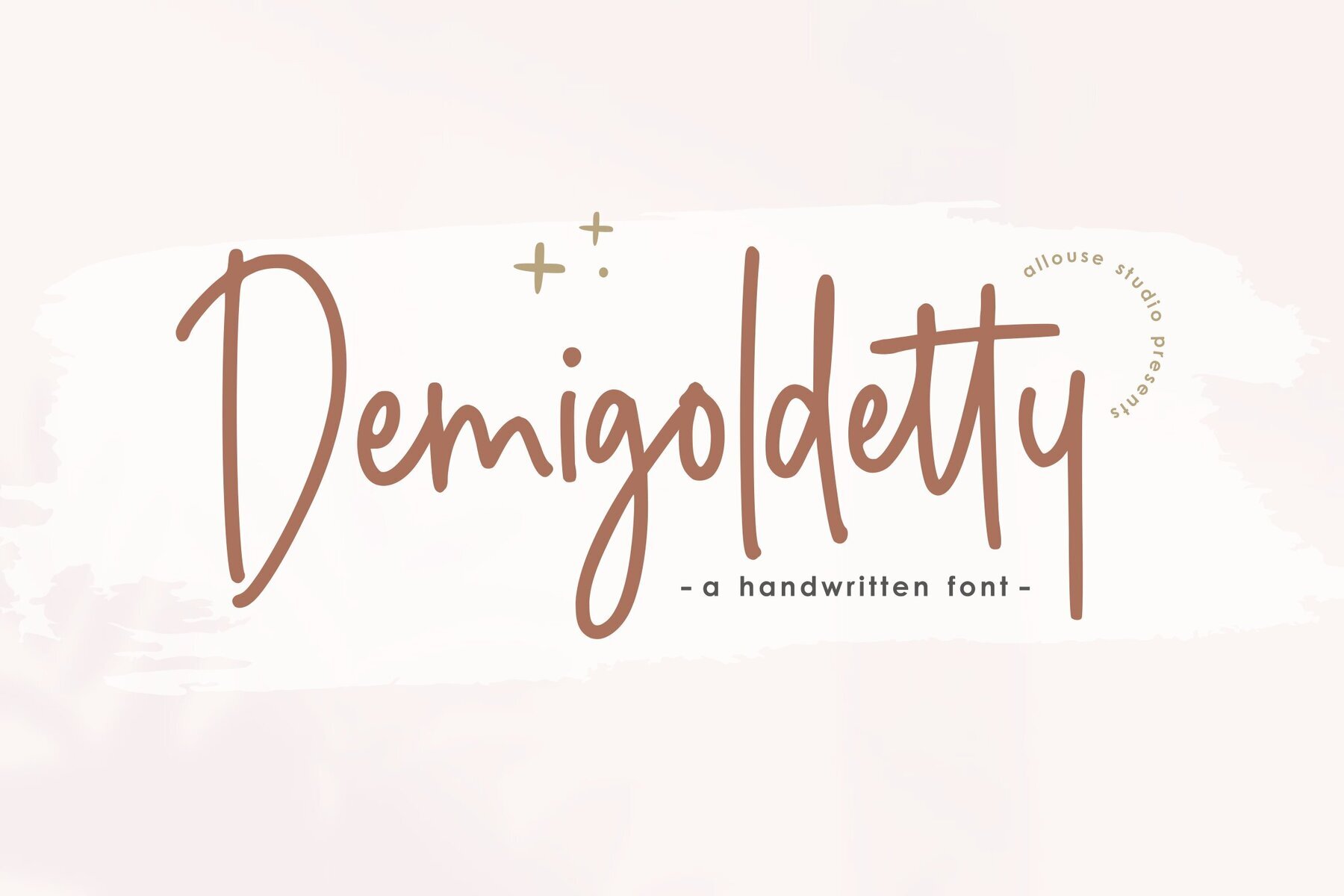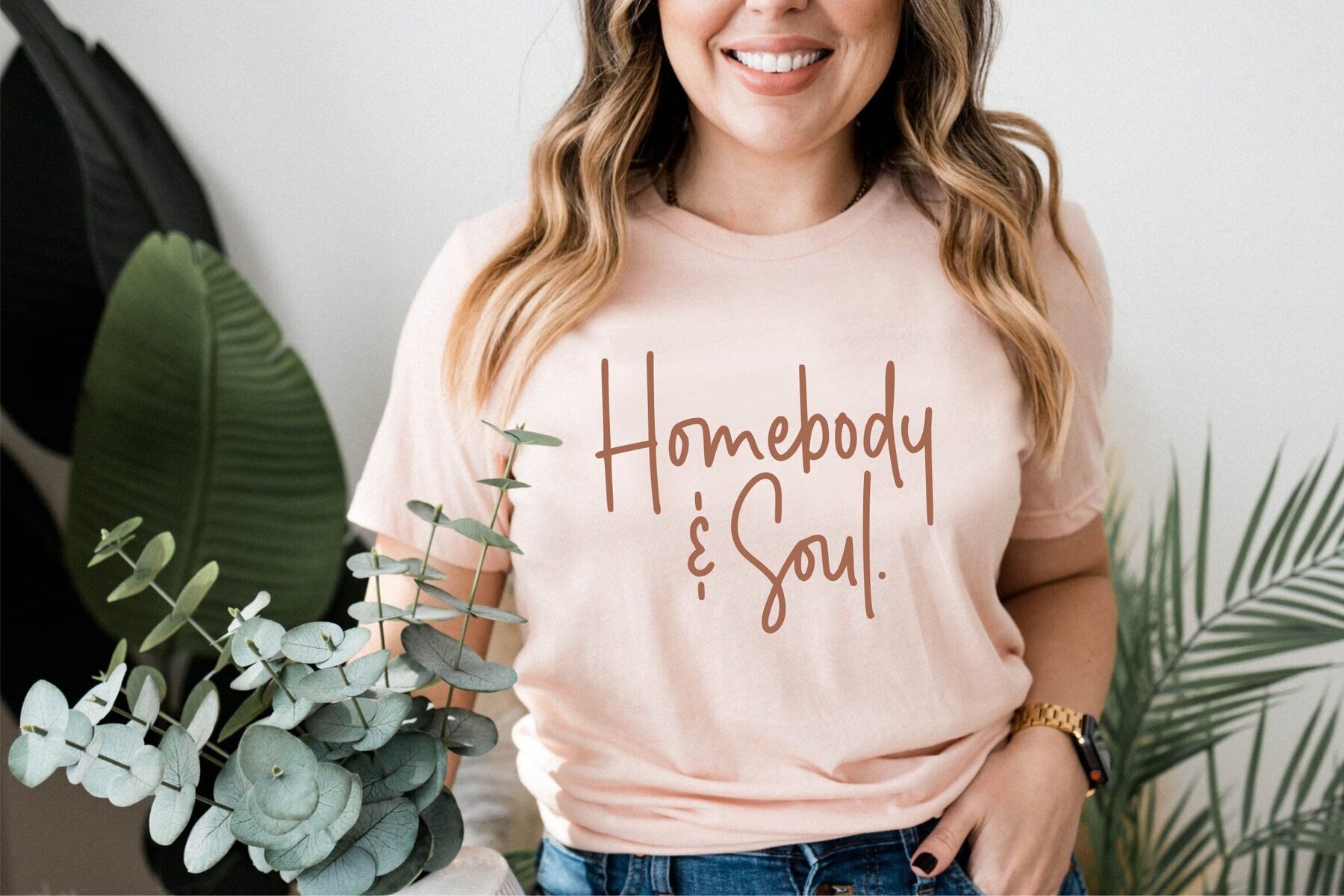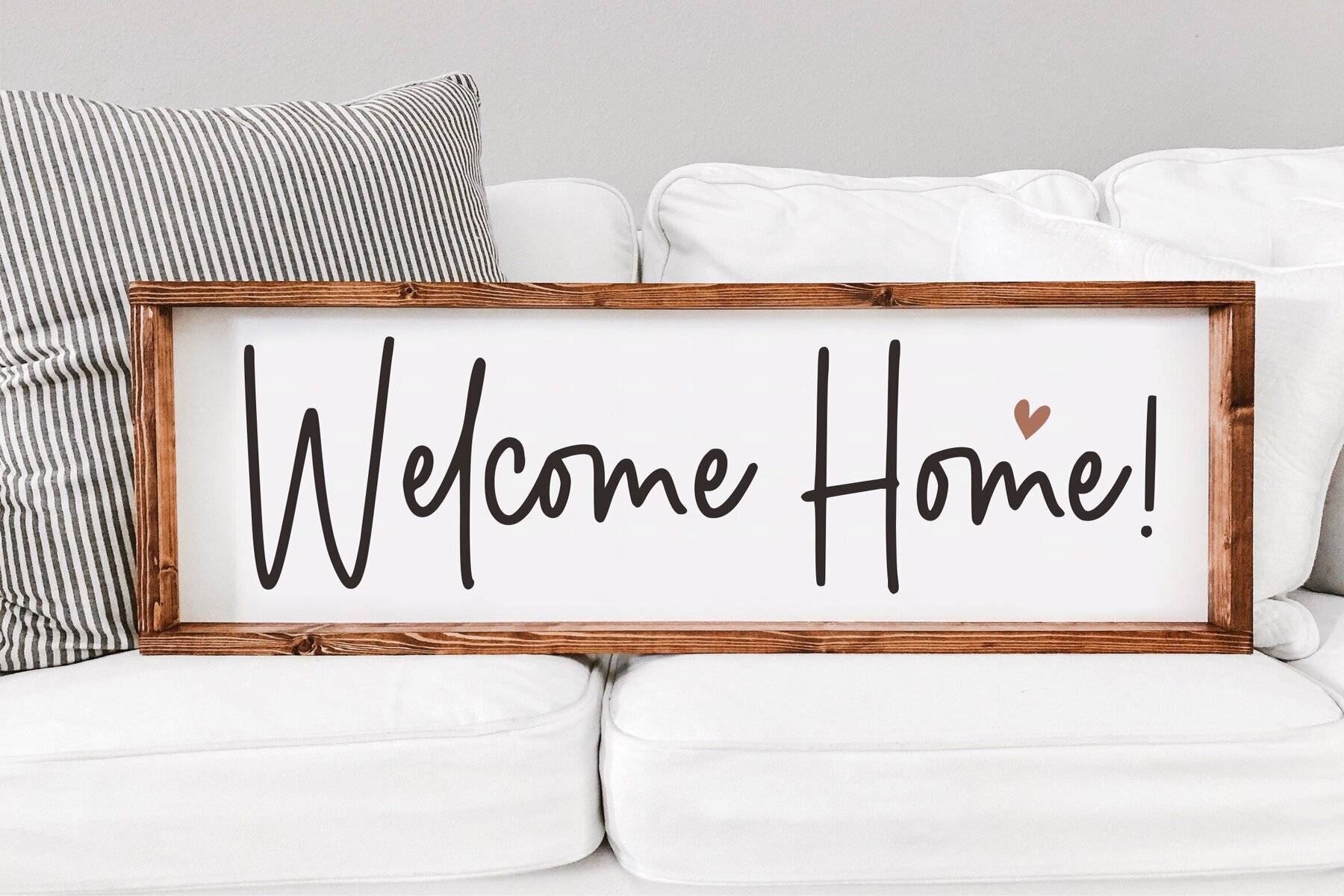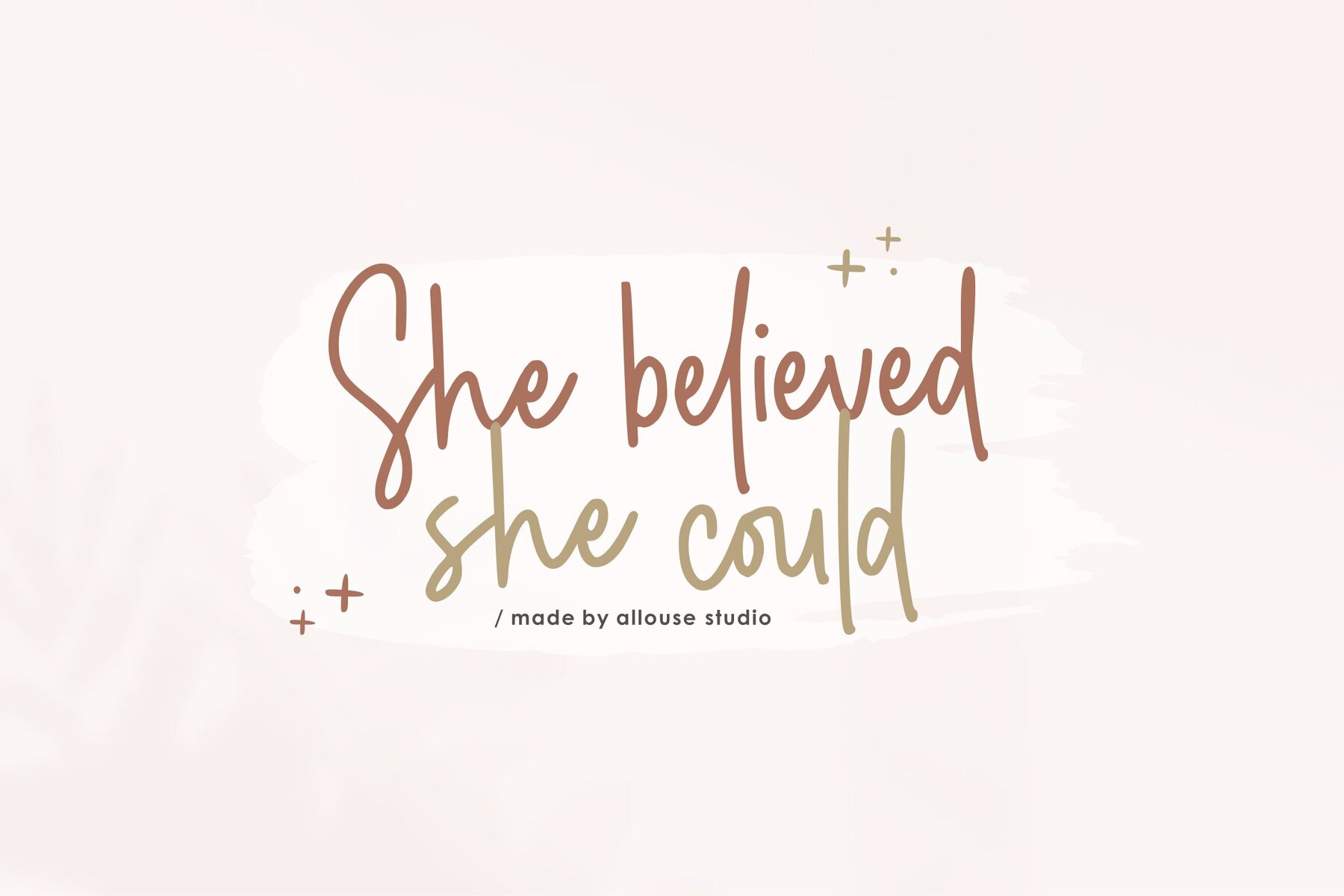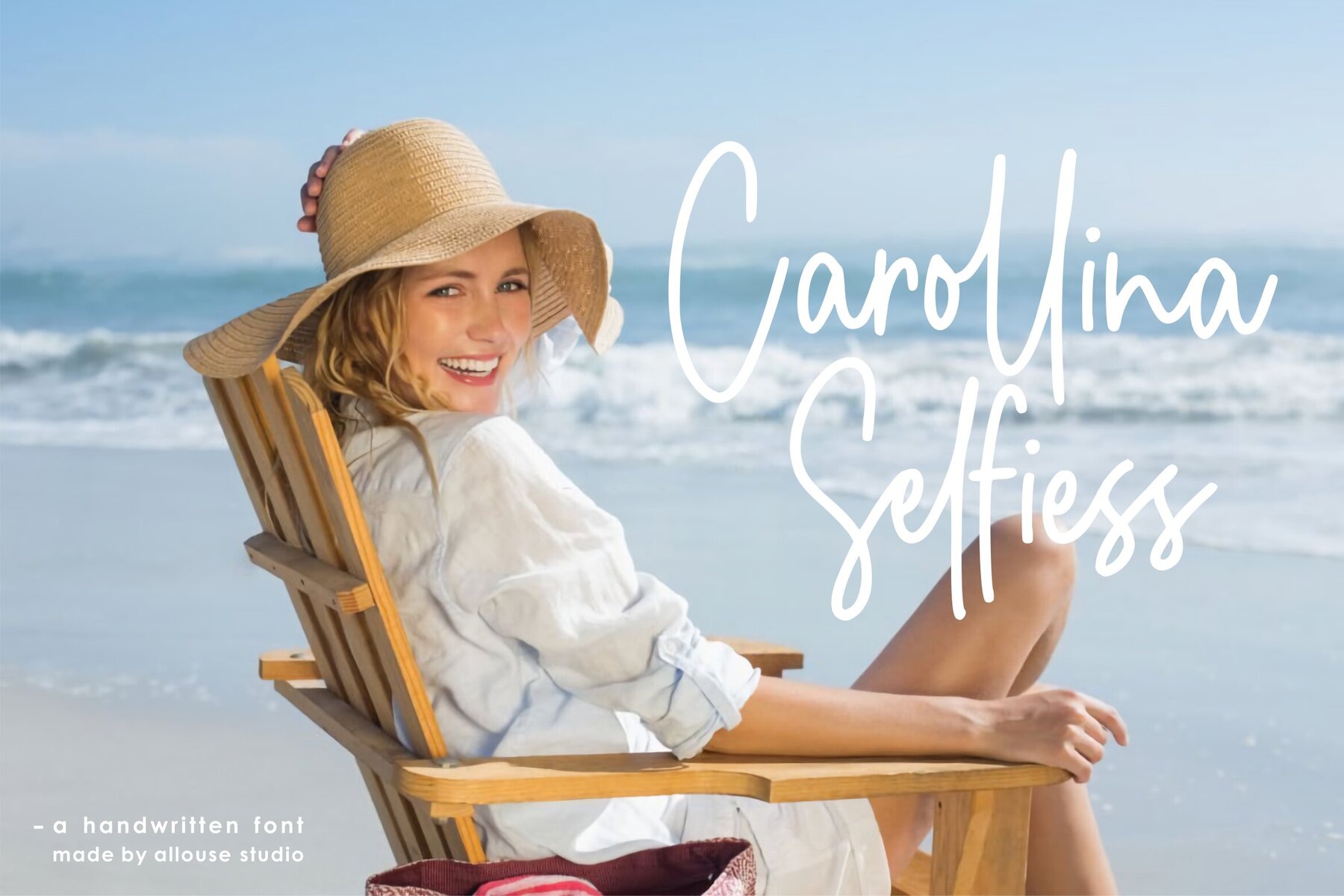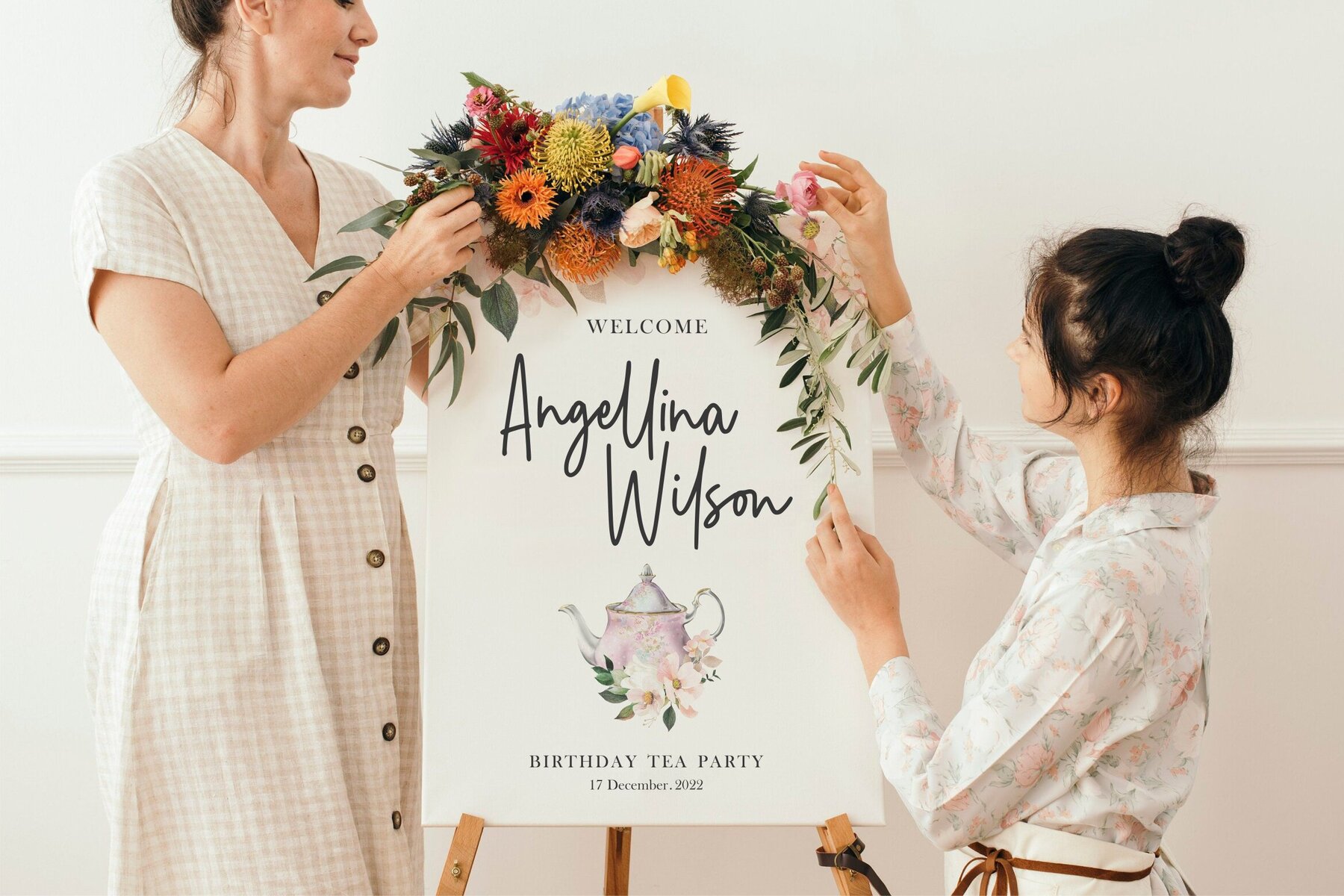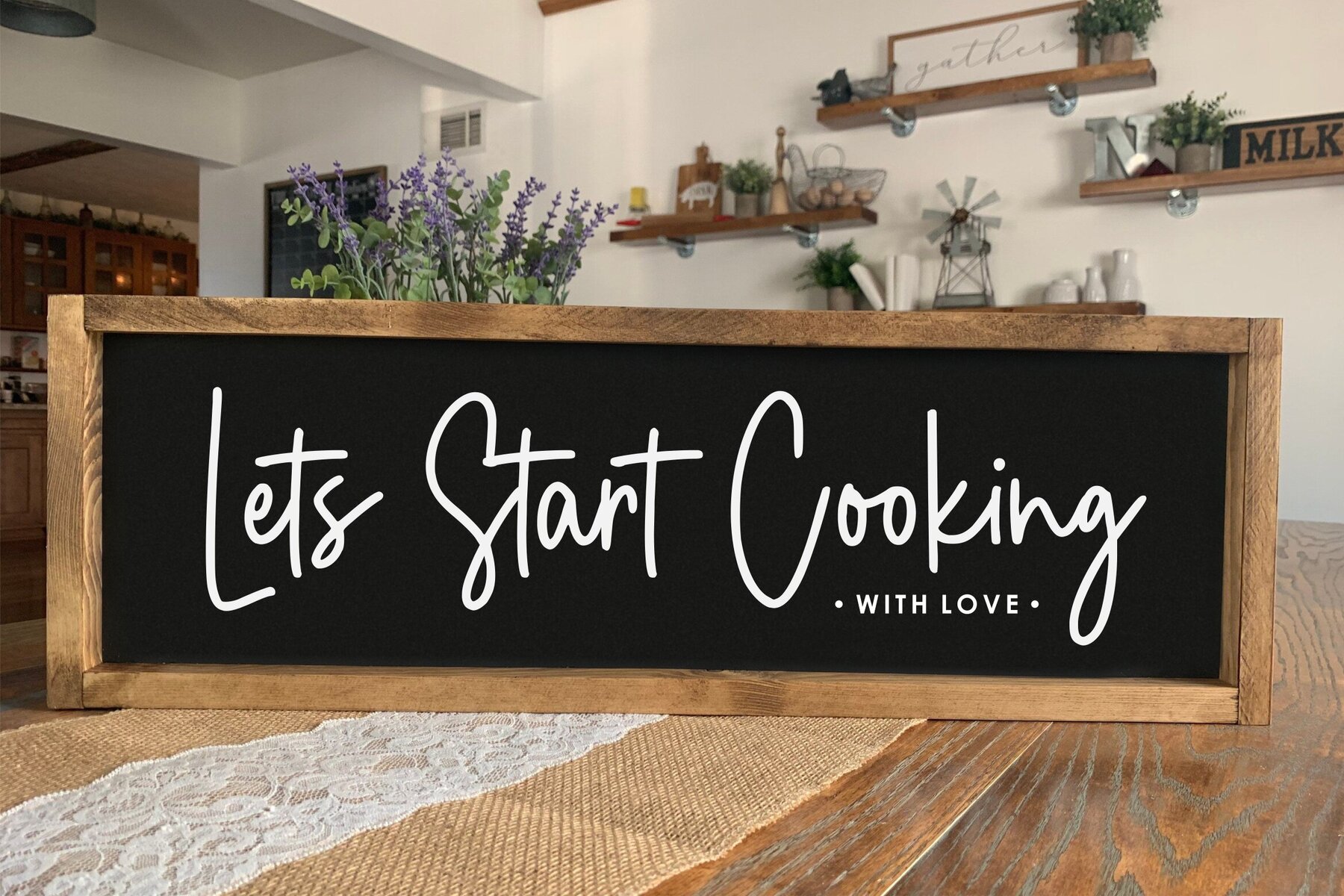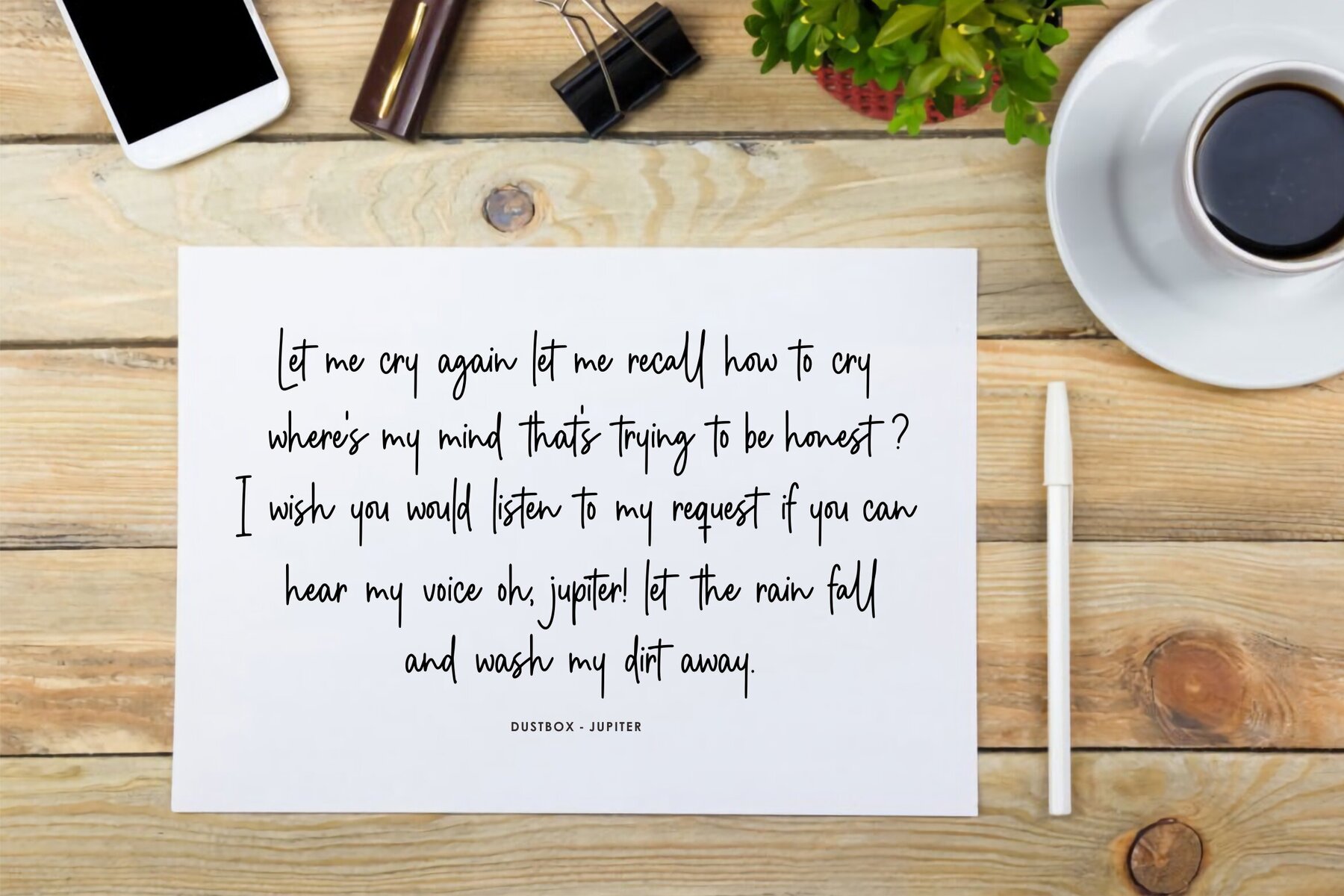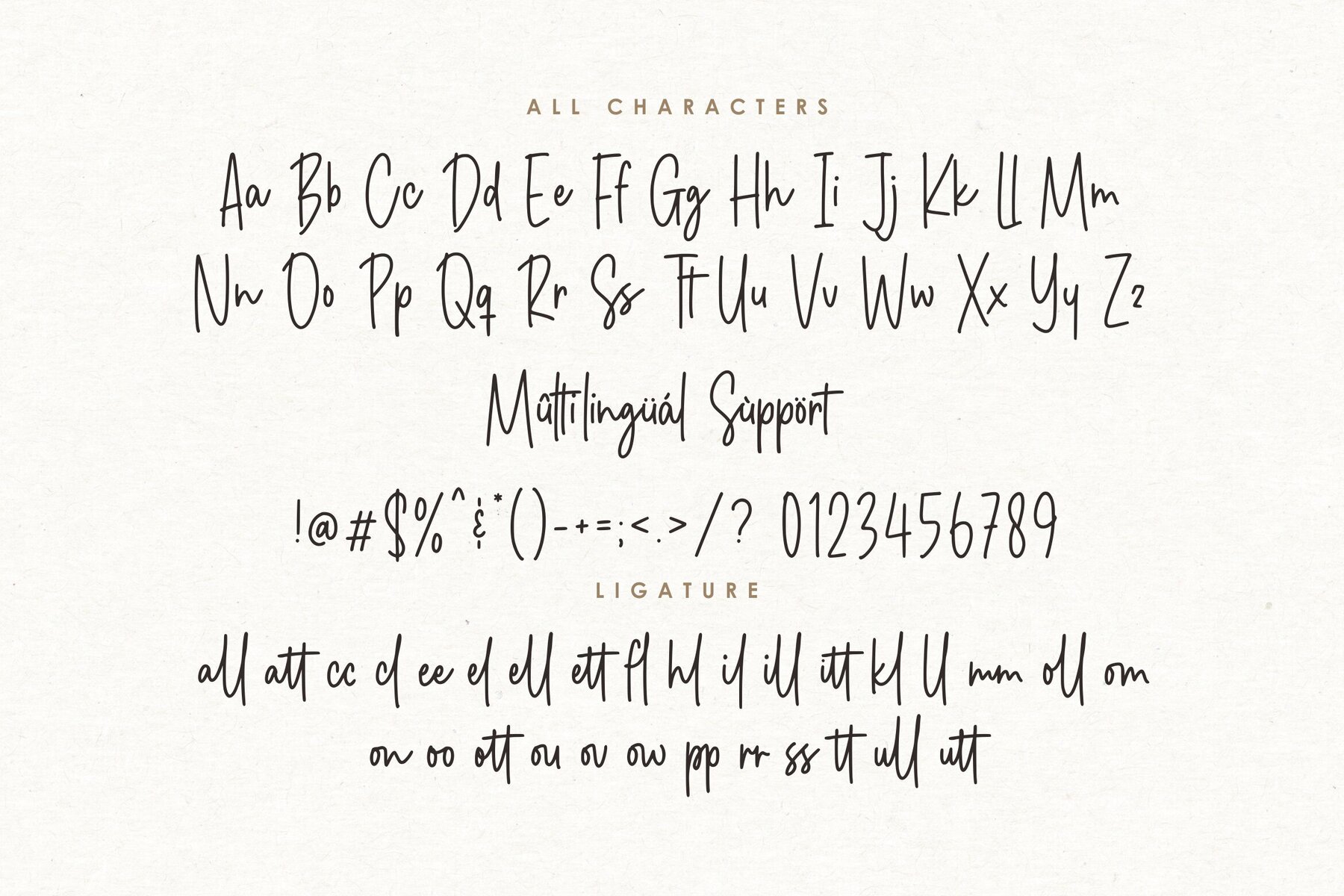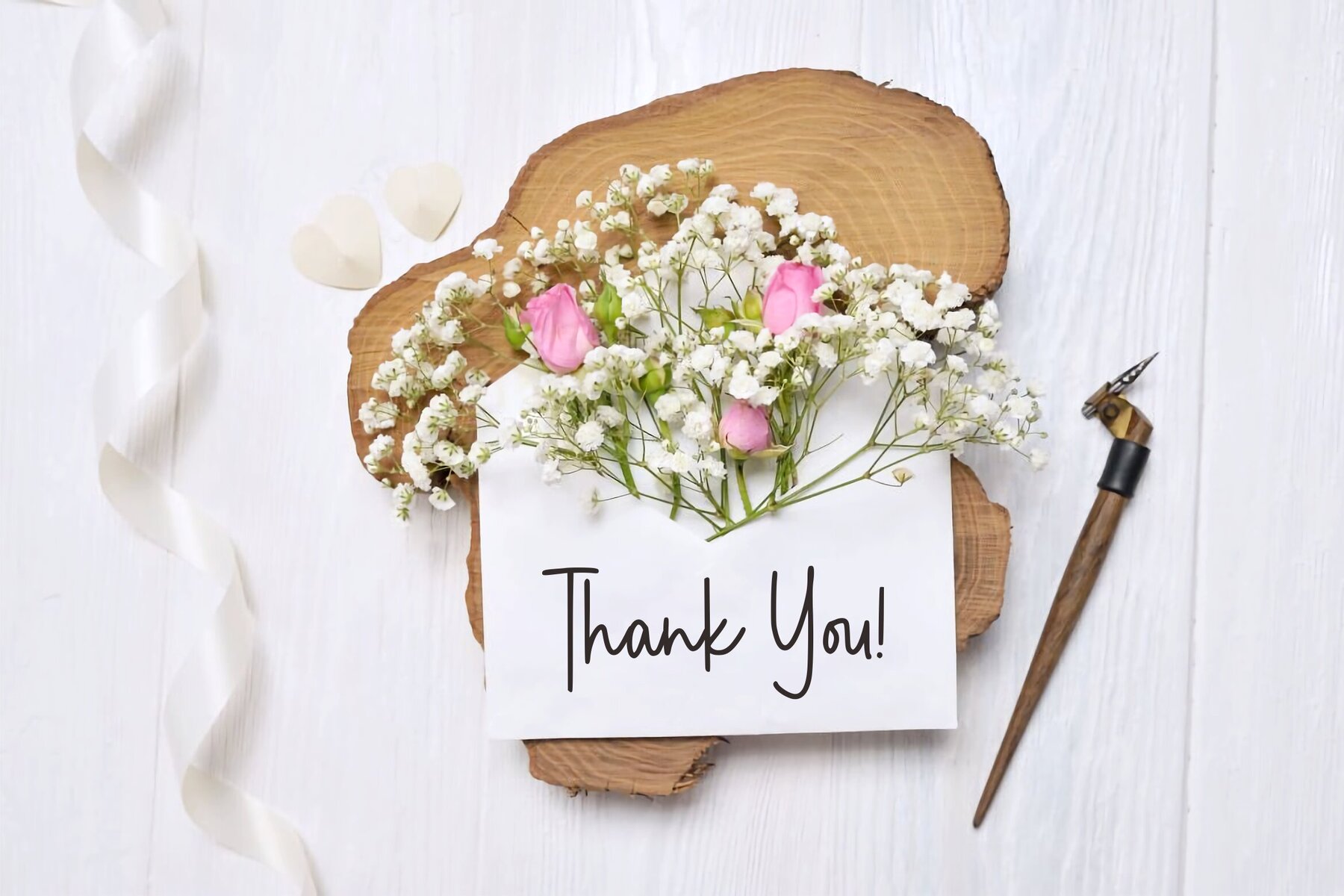
Demigoldetty Font
Demigoldetty Regular
Demigoldetty is a charming handwritten font, ideal for adding a personal touch to your design projects. Its unique style is perfect for enhancing product packaging, branding projects, magazines, social media, and wedding materials. Use Demigoldetty to express words in a distinctive and heartfelt manner, creating an inviting atmosphere in any design context.Demigoldetty: Expressive Handwritten Font